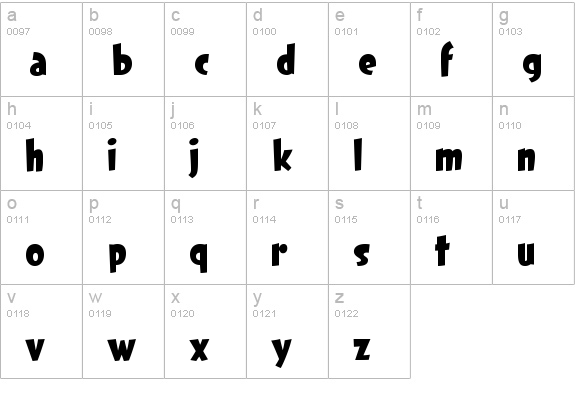
Dreamland Std Font Details
Dreamland Std font is a whimsical and playful typeface that evokes a sense of wonder and imagination. With its rounded edges and smooth curves, this font is perfect for creating designs that are both charming and eye-catching. Whether you're working on a children's book, a greeting card, or a logo for a creative business, Dreamland Std is sure to bring a touch of magic to your project. The best part? Dreamland Std is completely free to download at FontsMarket.com. You can easily add this delightful font to your collection and start using it in your designs right away. Don't miss out on the opportunity to enhance your creative projects with the enchanting charm of Dreamland Std font. Download it today and let your imagination soar!